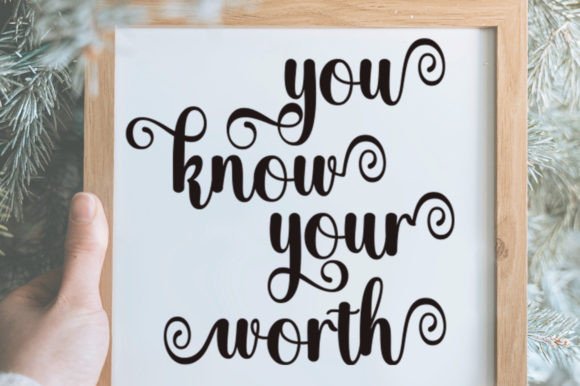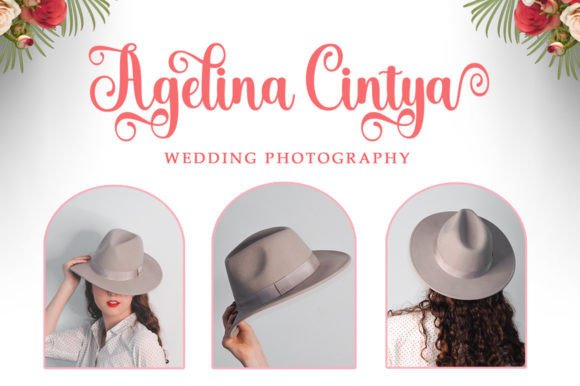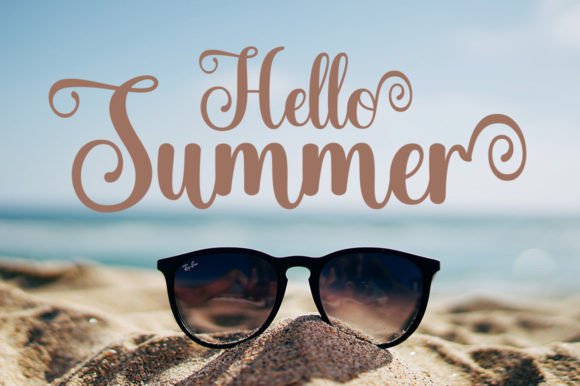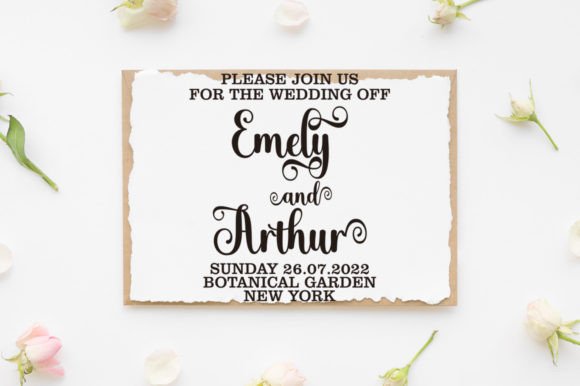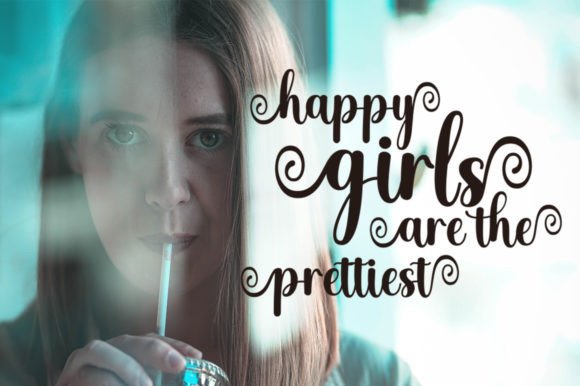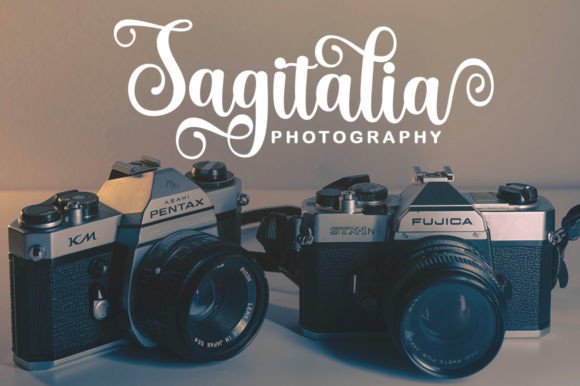
Introducing Berlay Script Font: Elevate Your Crafting Ideas with Sophistication
In the world of digital design, fonts play a crucial role in conveying messages, expressing emotions, and creating a lasting impression. For crafters, designers, and DIY enthusiasts, finding the perfect font can be a daunting task. However, if you’re looking for a sophisticated handwritten font that exudes confidence, authenticity, and charm, look no further than Berlay Script Font.
What is Berlay Script Font?
Berlay Script is a beautifully crafted handwritten font that’s designed to elevate a wide range of crafting ideas, from cards to branding, labels, and much more. With its elegant and fluid strokes, this font is perfect for adding a touch of sophistication to any project. Whether you’re a seasoned designer or a DIY enthusiast, Berlay Script Font is sure to impress.
Key Features of Berlay Script Font
- Sophisticated Handwritten Style: Berlay Script Font boasts a beautiful, handwritten style that’s perfect for creating elegant and refined designs.
- Wide Range of Uses: Berlay Script Font is versatile and can be used for a variety of crafting ideas, including cards, branding, labels, and more.
Benefits of Using Berlay Script Font
So, why choose Berlay Script Font for your next project? Here are just a few benefits of using this amazing font:
- Adds a Touch of Sophistication: Berlay Script Font adds a level of sophistication and elegance to any design, making it perfect for high-end branding and marketing materials.
- Creates a Lasting Impression: The unique and refined style of Berlay Script Font creates a lasting impression on the viewer, making it ideal for businesses and individuals looking to stand out.
- Versatile and Flexible: This font can be used in a variety of contexts, from digital designs to print materials, making it a versatile addition to any design library.
How to Use Berlay Script Font
- Pair it with Other Fonts: Berlay Script Font pairs well with other fonts, making it easy to create unique and interesting combinations.
- Experiment with Colors: This font looks great in a variety of colors, so don’t be afraid to experiment and find the perfect hue for your design.
- Use it for Headings and Titles: Berlay Script Font is perfect for headings and titles, adding a touch of elegance and sophistication to any design.